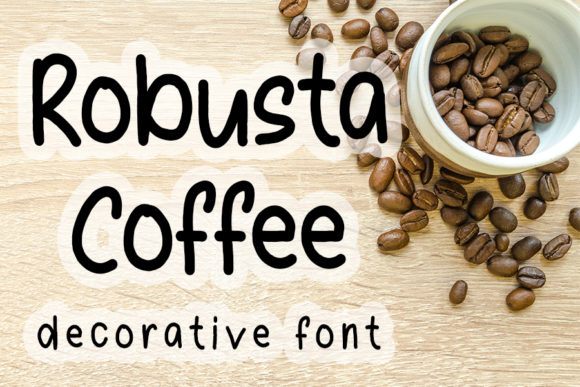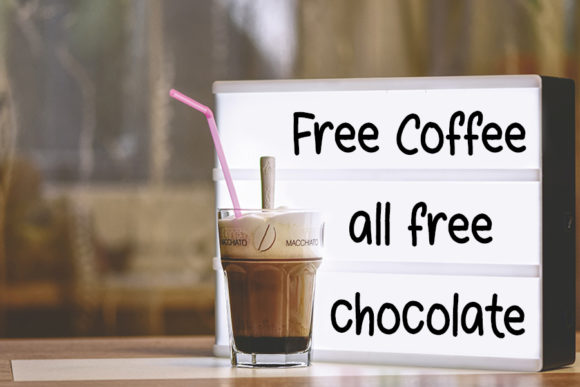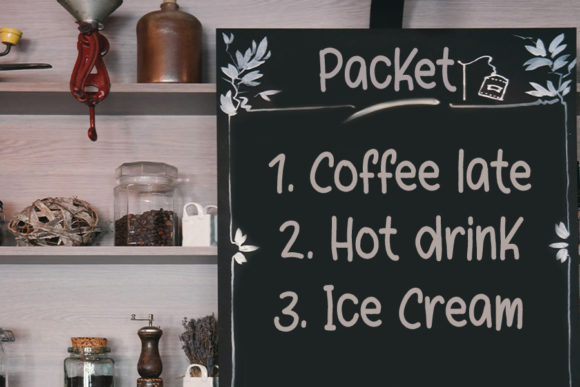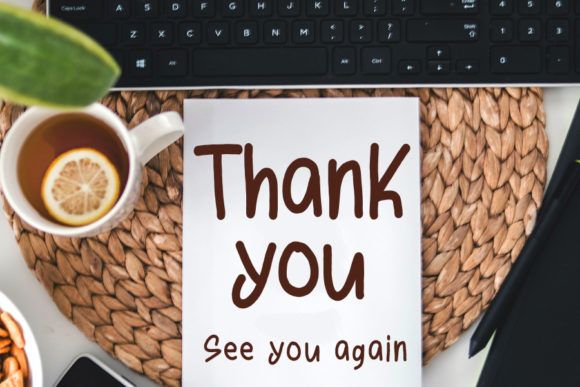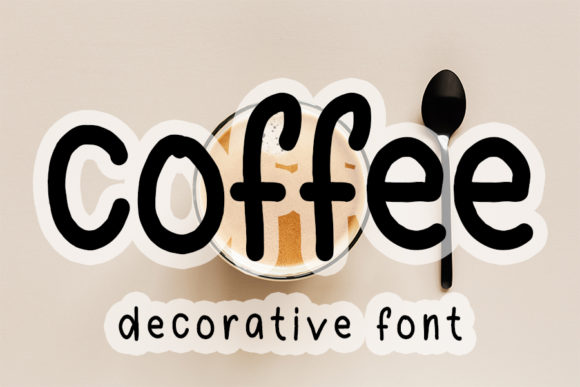
Coffee Font: The Perfect Blend of Style and Elegance
Coffee Font is a stunning handwritten font that has taken the design world by storm. With its bold and elegant strokes, it’s the perfect addition to any design project. Whether you’re a designer, crafter, or simply a coffee lover, this font is sure to impress. In this article, we’ll dive into the world of Coffee Font and explore its features, uses, and benefits.
A Bold and Elegant Handwritten Font
Coffee Font is a beautifully crafted handwritten font that exudes elegance and sophistication. Its bold strokes and flowing curves make it perfect for headlines, titles, and any other text that needs to stand out. The font’s unique character and charm make it an excellent choice for designers looking to add a personal touch to their work.
One of the best things about Coffee Font is its versatility. It can be used in a variety of contexts, from busy backgrounds to standalone headlines. The font’s bold and elegant design ensures that it will always be legible, even in the most complex designs. Whether you’re creating a logo, brochure, or social media post, Coffee Font is sure to make a statement.
Coffee Font is a dream come true for designers and crafters. Its unique and elegant design makes it perfect for a wide range of projects, from digital designs to handmade crafts. Whether you’re creating invitations, greeting cards, or DIY projects, Coffee Font is sure to add a touch of sophistication and style.
Key Features of Coffee Font
- Bold and elegant handwritten design: Coffee Font features bold and elegant strokes that make it perfect for headlines and titles.
- Versatile: The font can be used in a variety of contexts, from busy backgrounds to standalone headlines.
- Legible: The font’s bold design ensures that it will always be legible, even in complex designs.
- Unique character: Coffee Font has a unique character and charm that makes it an excellent choice for designers looking to add a personal touch to their work.
Using Coffee Font in Your Designs
Tips and Tricks for Getting the Most Out of Coffee Font
- Use it as a headline: Coffee Font is perfect for headlines and titles. Use it to add a bold and elegant touch to your designs.
- Experiment with colors: The font’s bold design makes it perfect for use with a variety of colors. Experiment with different colors to find the perfect combination for your design.
- Pair it with other fonts: Coffee Font can be paired with other fonts to create a unique and interesting design. Try pairing it with a sans-serif font for a bold and modern look.
| Font Name | Coffee Font |
| Author | FL Space |
- What is Coffee Font?: Coffee Font is a bold and elegant handwritten font.